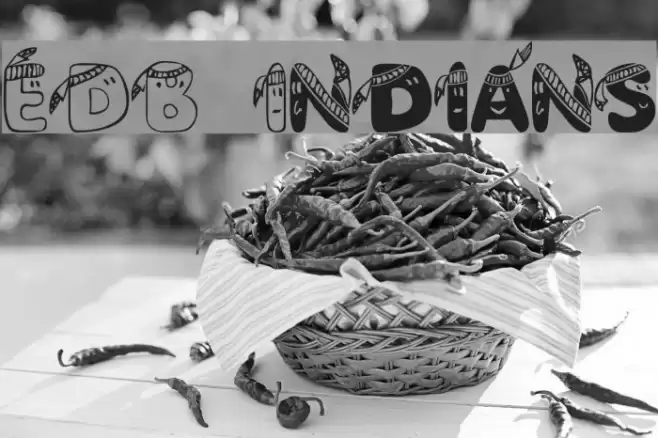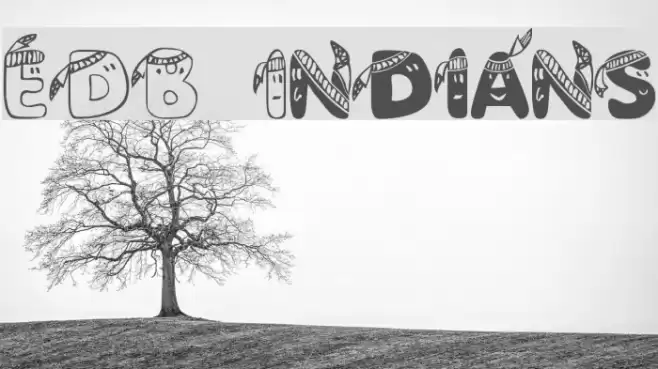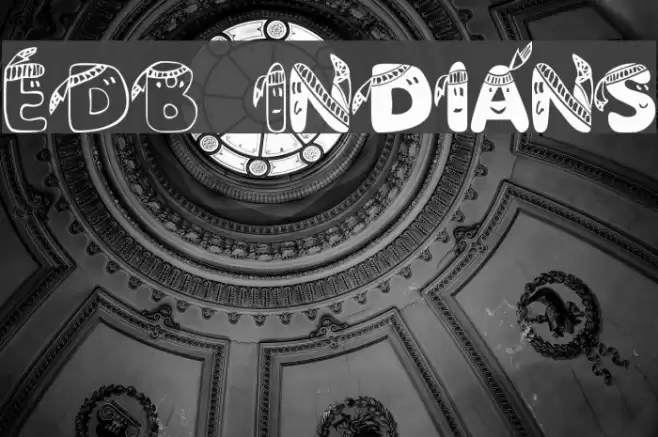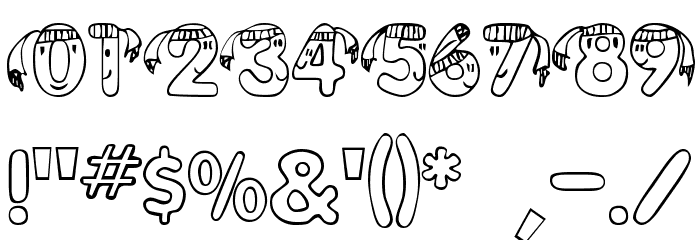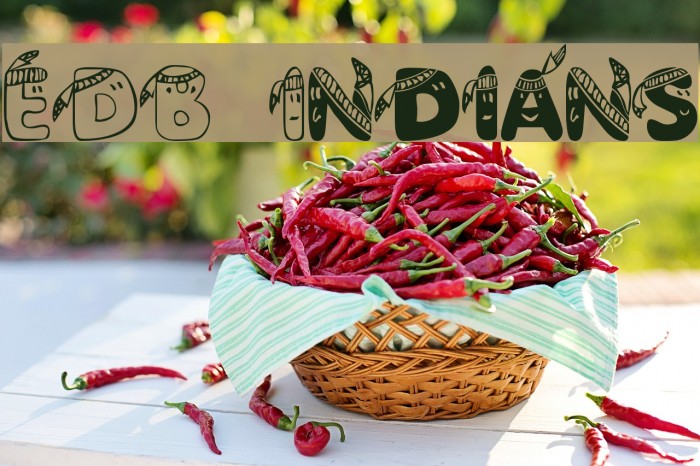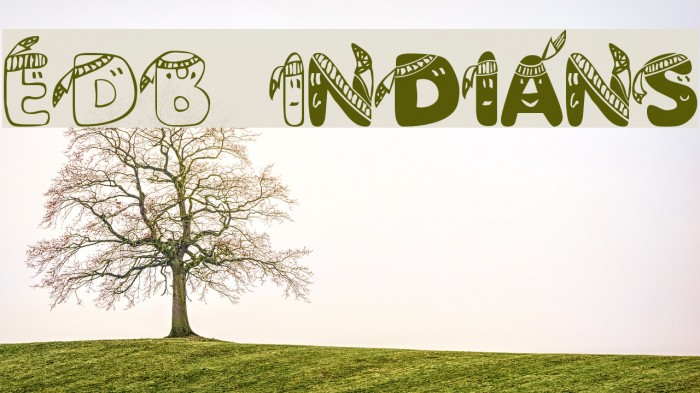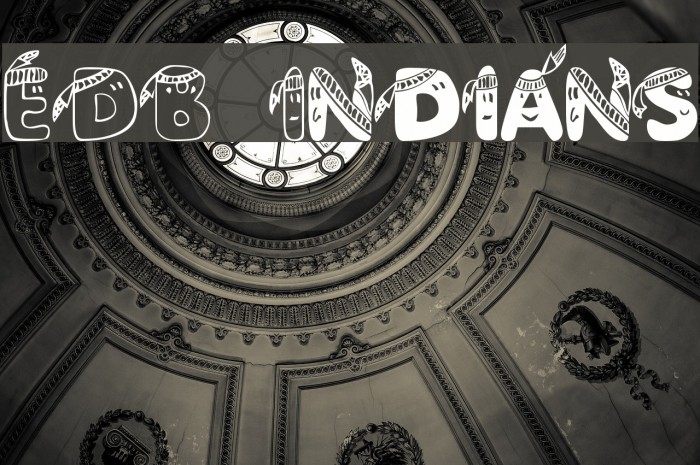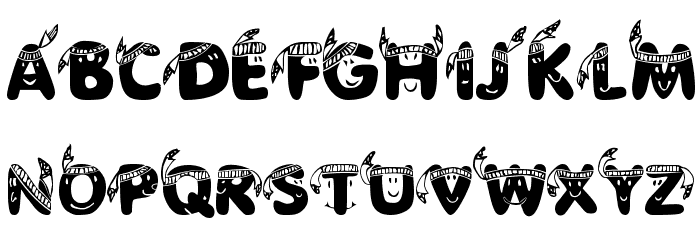
EDB Indians Font
EDB Indians Description
This playful and decorative font features a unique design with each character adorned with feather-like elements and intricate patterns. The uppercase and lowercase letters maintain a consistent style, with bold outlines and filled interiors that create a striking visual impact. The numbers and special characters follow the same thematic design, making the font cohesive and visually appealing. Its whimsical and artistic nature makes it stand out, ideal for projects that require a touch of creativity and flair. The font's distinct style is both eye-catching and memorable, perfect for making a statement.
A decorative font with feather-like elements and bold outlines, ideal for creative projects from Decorative fonts.
- Proposed Projects: Great for children's books, posters, event invitations, and branding that requires a playful and artistic touch.